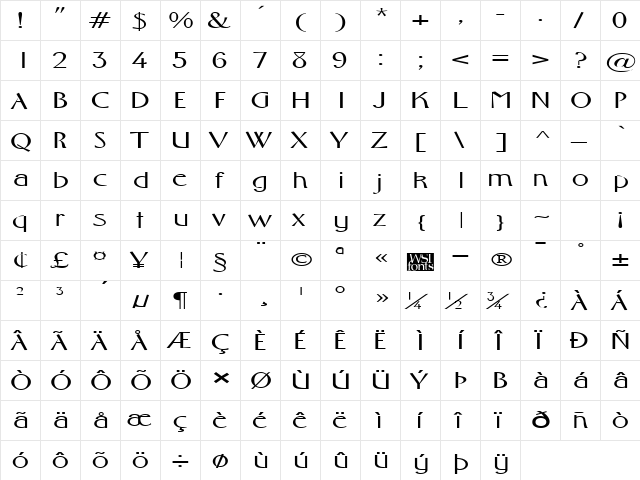
FosterExpanded Regular
Design Context for FosterExpanded Typeface
FosterExpanded is a composed and adaptable typeface that performs quietly and consistently across a wide range of design contexts.